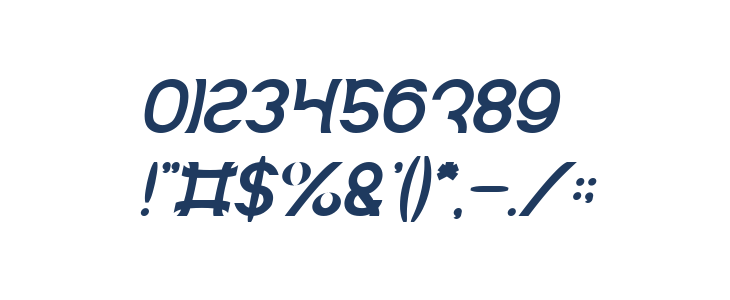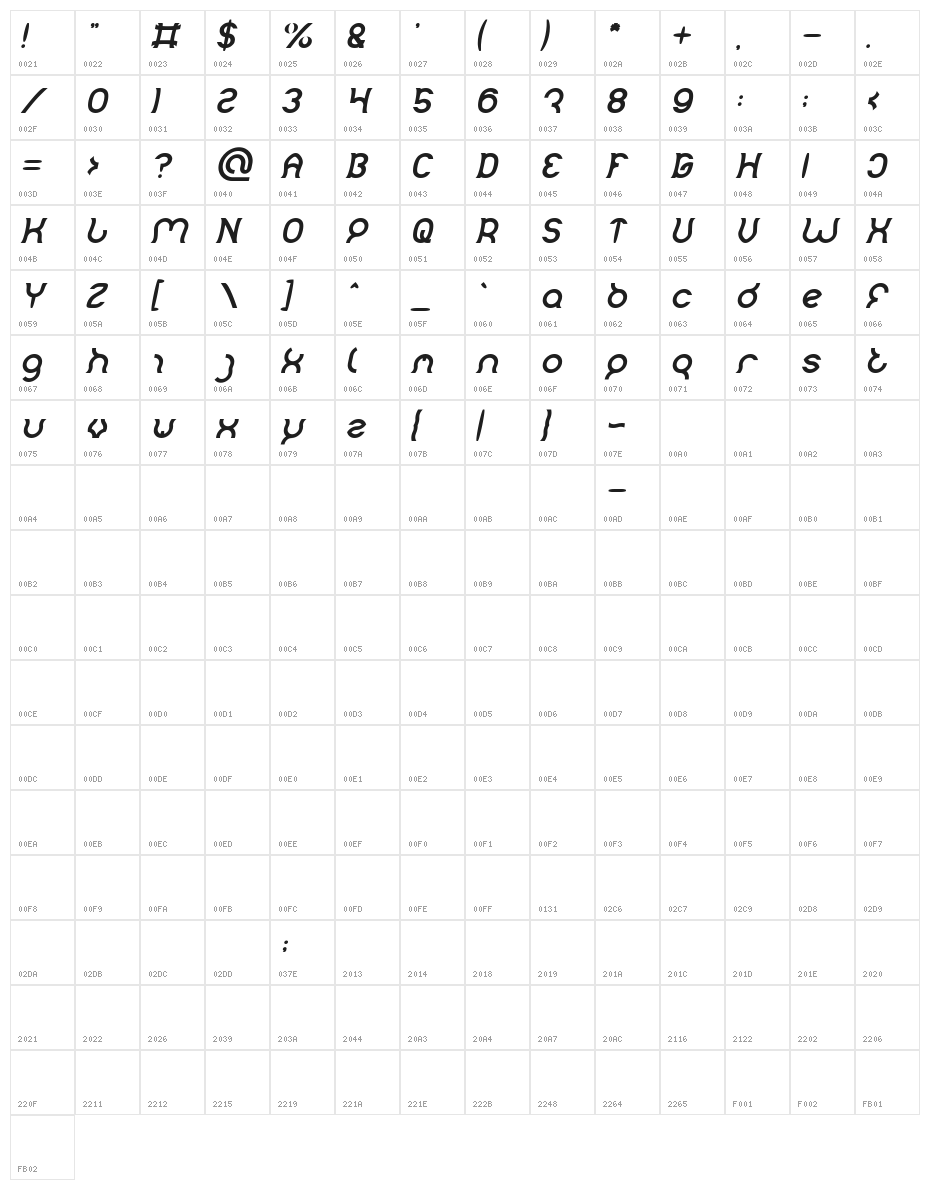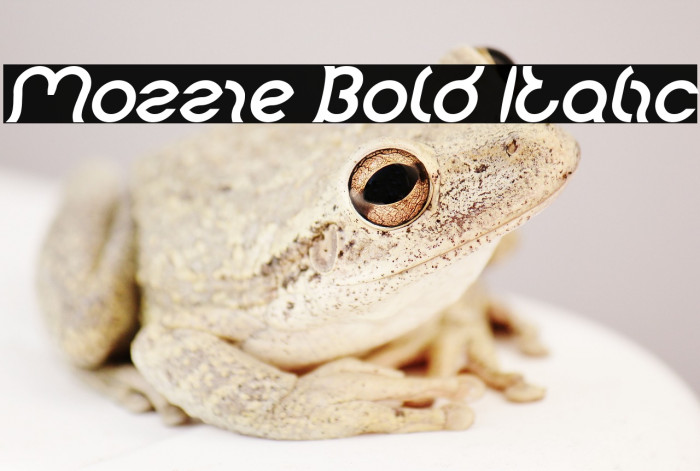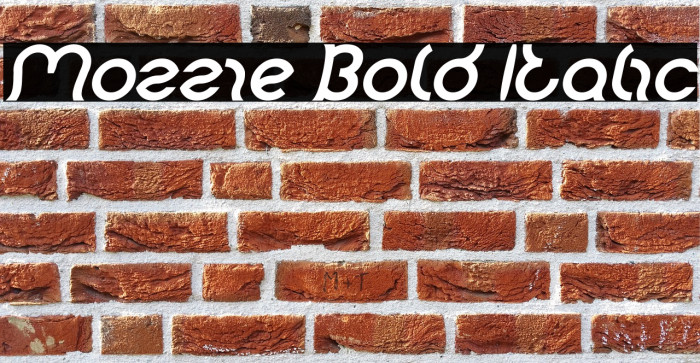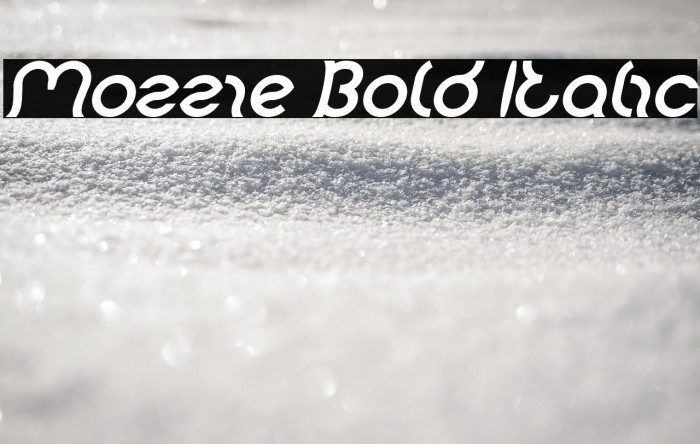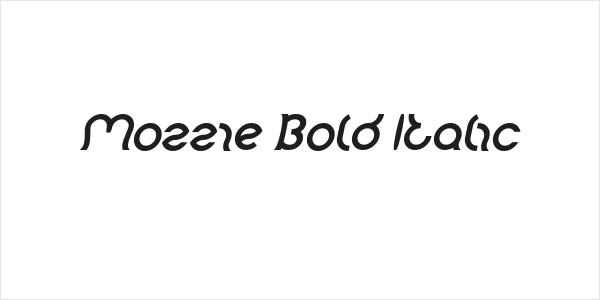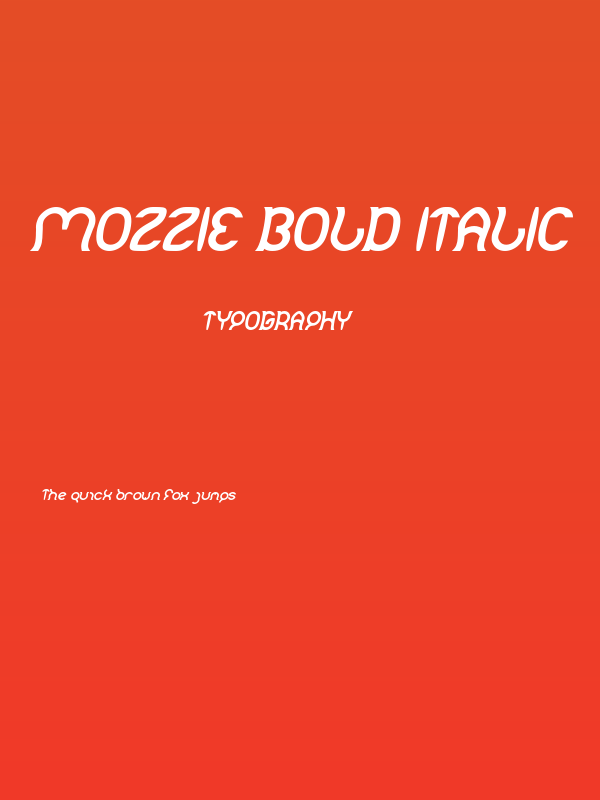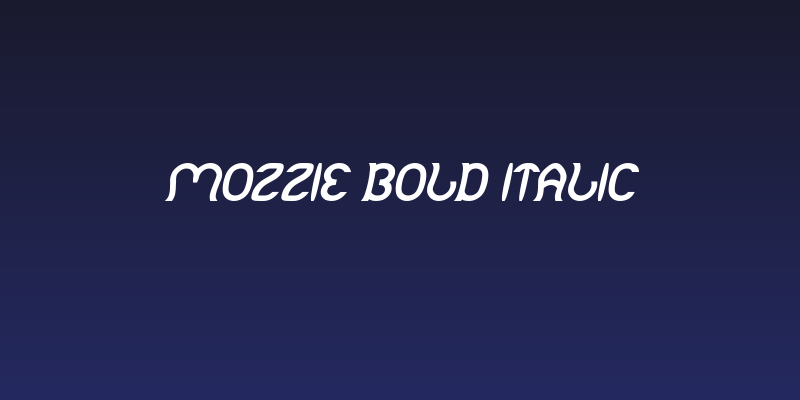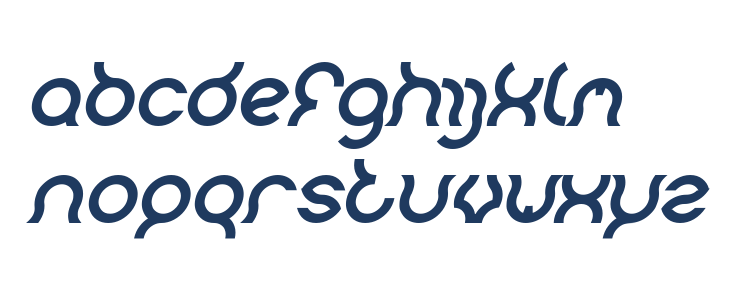
Mozzie Bold Italic Font
Mozzie Bold Italic Description
This font exhibits a bold and italic style with a playful and dynamic character. The letters are crafted with a unique curvature that gives them a sense of motion and fluidity. The strokes are thick and consistent, providing a strong visual impact. The uppercase and lowercase letters maintain a cohesive style, with distinctive loops and swirls that add to its decorative appeal. Numbers and special characters are designed to match the overall aesthetic, ensuring uniformity across all glyphs. This font's boldness and slanted orientation make it stand out, perfect for creative and eye-catching designs.
| Proposed Projects | Ideal for branding, posters, and creative headlines that require a bold and artistic touch. |